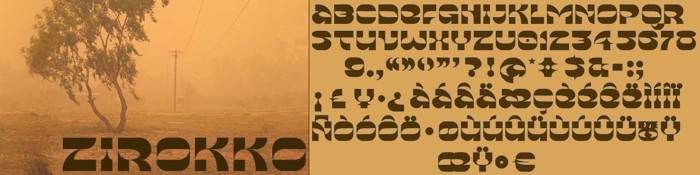
X height: 1 and a half brick. Exist a second U in the "u" glyph.
I put a second U in the "u" glyph. Enjoy, please.
The @ kinda looks like the CBS logo, or your EYE logo. 10/10
I put a second U in the "u" glyph. Enjoy, please.
The @ kinda looks like the CBS logo, or your EYE logo. 10/10